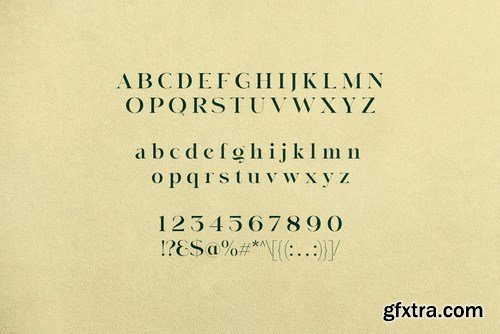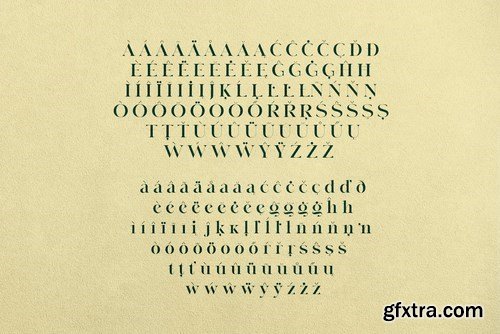
Hello, i'm Nakilla, a contrast, yet beautiful display serif font. In some vocal both in uppercase and lowercase, my designer made some tweak alternate to give me modern feeling, along with ligature, it would make your next project outstanding. You can see me in action, kindly swipe my preview image. I can be headline, i can be body, my Uppercase lookin cool right ? Modern, classic and minimalist. I'm ready for your next project, buy me now. Peace, Nakilla.